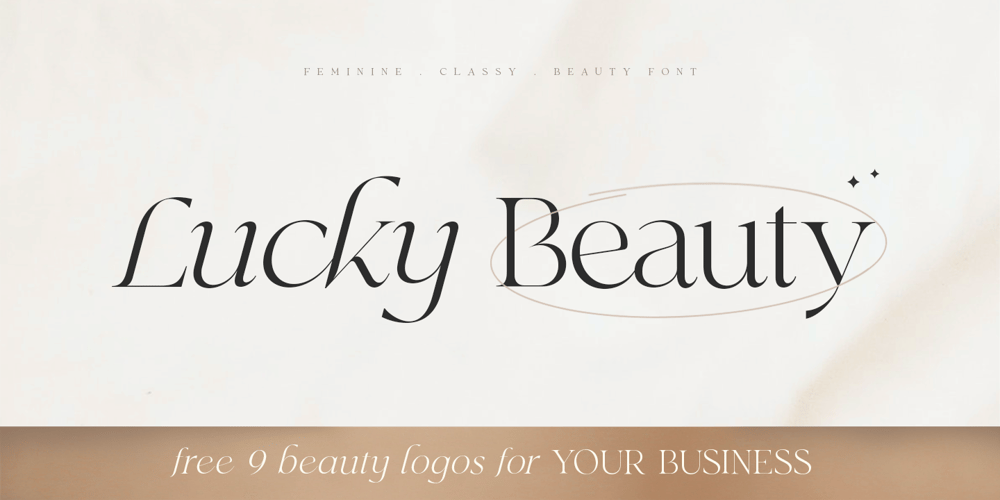
Lucky Beauty SS Font Family was designed by Zamroni Hamzah and published by Sensatype Studio. Lucky Beauty SS contains 2 styles and family package options. Lucky Beauty is a Styled Classy Beauty Font pairing between regular and italic style. Crafted specially for Branding needs to make any elements standout and Perfect beauty look. With a simple and classy shape will make your design more classy, elegant, and certainly unique with this font.Lucky Beauty is also included full set of: regular and italic version uppercase and lowercase letters multilingual characters numerals *punctuations Wish you enjoy my font! 🙂